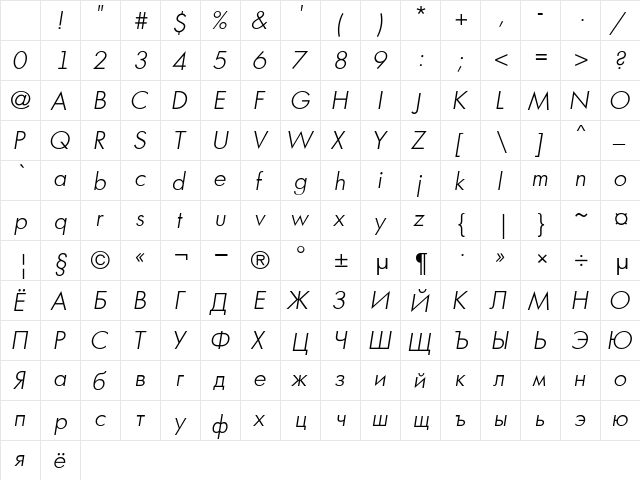
Complete a_FuturicaBs LightItalic glyph index. Displaying only characters natively supported by a_FuturicaBs LightItalic font.
a_FuturicaBs has a distinctly futuristic character, with geometric precision and clean angles that feel at home in technology, gaming, and sci-fi contexts. The slanted form adds forward momentum and visual energy. Its slender proportions lend an understated elegance to any composition.